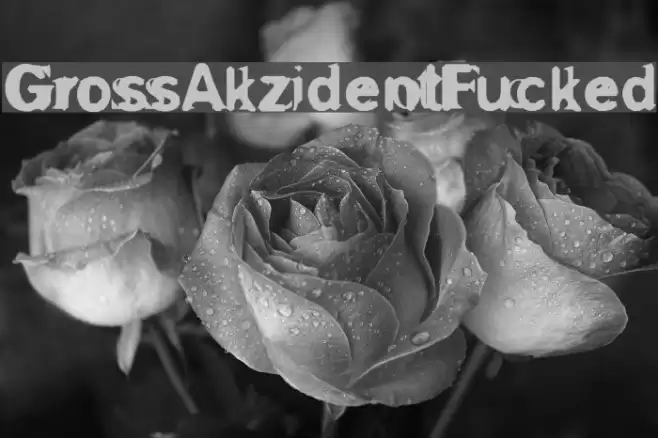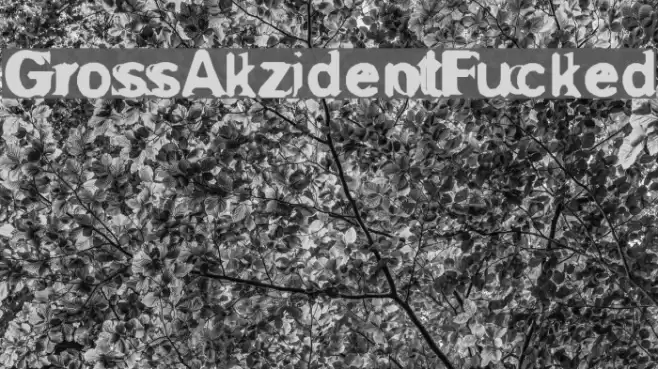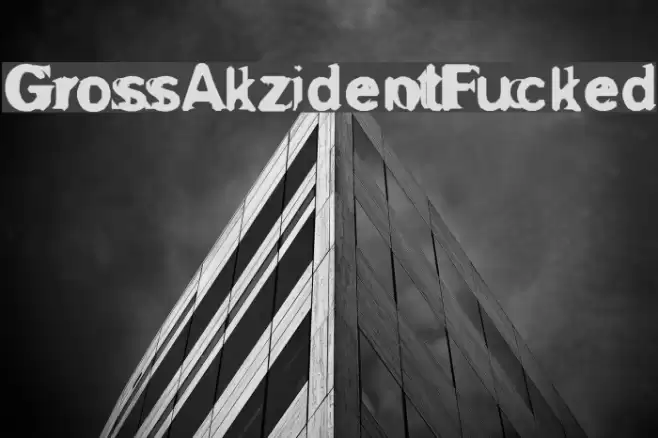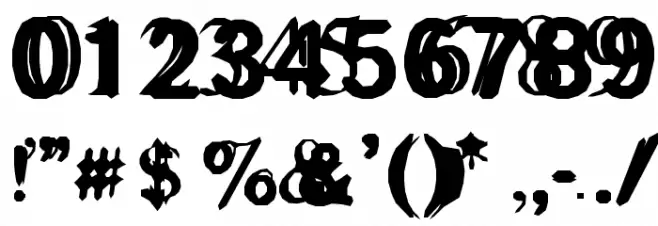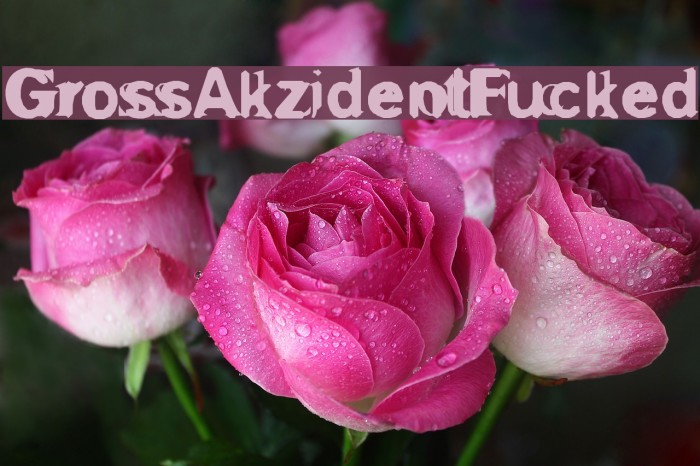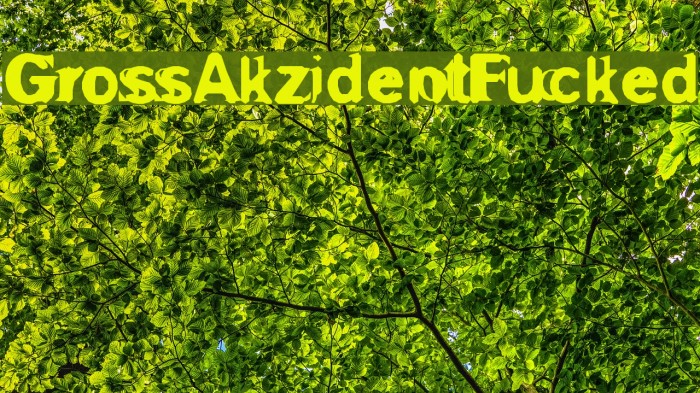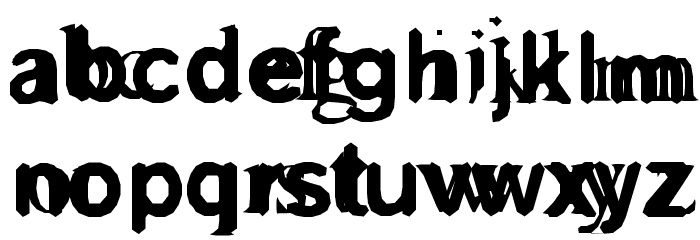
GrossAkzidentFucked Font
GrossAkzidentFucked Description
This font features a highly distressed and chaotic design, with each character appearing as if it has been distorted or damaged. The strokes are uneven and jagged, giving it a raw and edgy appearance. The uppercase and lowercase letters maintain a consistent level of distortion, creating a cohesive yet unpredictable style. Numbers and special characters follow the same theme, adding to the overall disordered aesthetic. This font is designed to grab attention and convey a sense of urgency or disruption.
A distressed, chaotic font with jagged, uneven strokes for an edgy look from Distorted Eroded fonts.
- Proposed Projects: Ideal for projects that require a grunge or punk aesthetic, such as music album covers, posters, or edgy branding materials.
- Character Spacing: Tight
- Use Case: Headlines, Posters, Branding